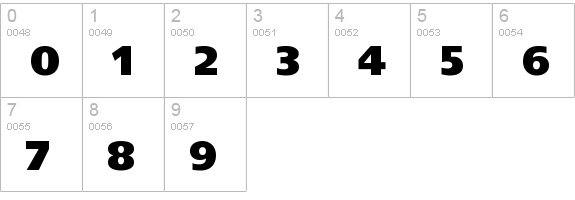
Palma Black SSi Extra Black is a maximum-weight, dramatic variant in the Palma typeface family \xE2\x80\x94 well suited to maximum-impact headlines, posters, and packaging.
Introducing Palma Black SSi Extra Black font, a bold and captivating typeface that exudes elegance and sophistication. This font radiates a sense of power and authority with its strong and commanding presence. Its extra black weight adds a touch of intensity, making it perfect for making a statement or creating a lasting impression. Palma Black SSi Extra Black font features sleek and stylish letterforms that effortlessly blend modern design with a timeless appeal. Each character is meticulously crafted, ensuring smooth curves and sharp edges that demand attention. This font is not only visually striking but also incredibly versatile. Whether you're designing a logo, creating eye-catching headlines, or crafting impactful signage, Palma Black SSi Extra Black font will elevate your projects to new heights. Its legibility and clarity make it ideal for both print and digital applications, ensuring that your message is effectively communicated. And the best part? Palma Black SSi Extra Black font is available for free! You can easily download this exceptional typeface at FontsMarket.com, a trusted source for high-quality fonts. With just a few clicks, you can enhance your design arsenal with this remarkable font, without any cost. So, why wait? Unlock the potential of your creative projects with Palma Black SSi Extra Black font, the font that combines elegance and power, and make a lasting impression. Download it for free now at FontsMarket.com and elevate your designs to new levels of excellence.